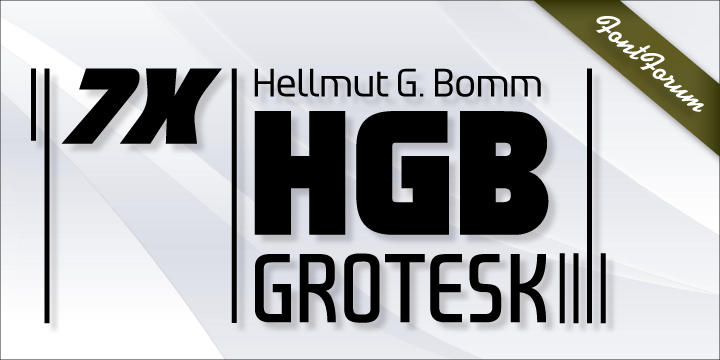
HGB Grotesk Font excels in industrial applications including manufacturing companies, engineering firms, technical documentation, architectural studios, construction businesses, machinery branding, precision instruments, and industrial design projects that require robust sans-serif typography with Germanic efficiency and functional clarity.
What makes HGB Grotesk Font exciting is its exceptional embodiment of Germanic design principles through precise, no-nonsense letterforms that prioritize functionality over decoration. This powerful typeface features strong geometric foundations and engineering-inspired characteristics that communicate reliability and technical excellence, making it perfect for brands emphasizing precision and industrial competence.
The HGB Grotesk Font family includes light, regular, medium, and bold weights, complemented by condensed variations for technical documentation and space-efficient applications. Each style maintains the font's characteristic Germanic precision while providing designers with comprehensive tools for creating structured layouts and professional industrial communications.
Technical professionals consistently choose HGB Grotesk Font Free Download for projects requiring industrial authenticity and engineering credibility. This versatile typeface seamlessly communicates technical competence while maintaining excellent readability in demanding environments, ensuring brand messages resonate with audiences seeking reliable industrial solutions and precision engineering services.
The font's Germanic heritage and industrial character make it particularly suitable for manufacturing and engineering sectors. HGB Grotesk Font delivers exceptional technical impact while ensuring optimal legibility across harsh industrial conditions, offering designers a dependable solution for creating memorable brand identities that communicate precision, reliability, and Germanic engineering excellence across industrial marketing applications.